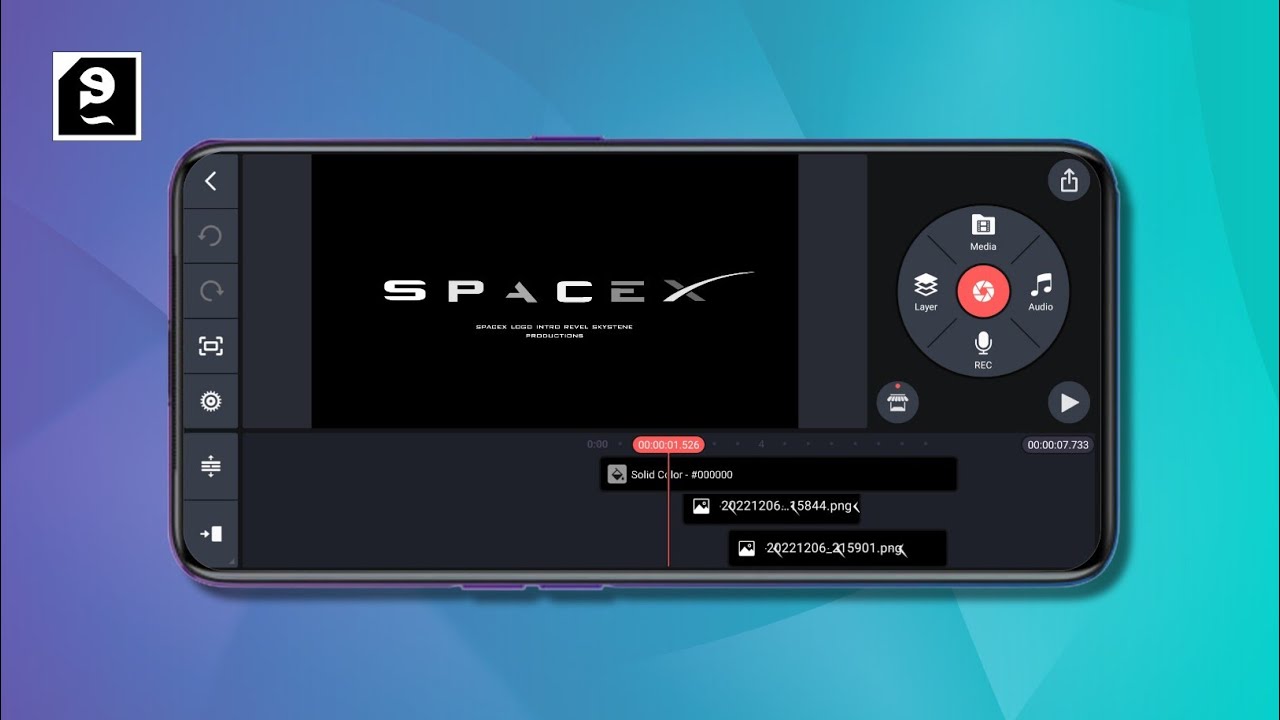
Alien Spaceship Font Dafont The font designed by spacex has a minimalistic feel. it uses geometric forms and a futuristic style, encapsulating the spacex key offering, unique innovation, and top notch technology. Spacex font download is available free from fontget. spacex is a techno type font that can be used on any device such as pc, mac, linux, ios and android. this font has 1 variant available.
Star Space Font Dafont Spacex font spacex sans serif font this is a unique and modern sans serif typeface manufactured by zohanimasi. this typeface is versatile with high clarity to emphasize a modern feel. it is perfect for important titles or names, logo, headings, flyer, advertisements, product packaging, product designs, label, etc. this is the demo version. Download and install spacex font, that is from sans serif category. this font is available free to download from dafontfree.co. Free download of the spacex font. test the typography online before downloading. the regular subfamily helps shape balanced combinations with spacex. spacex was created by zohan nur muchlis. related tags: regular. always verify personal commercial license terms with the font author before final use. Download for free spacex regular. check out examples of the spacex regular font at azfonts.